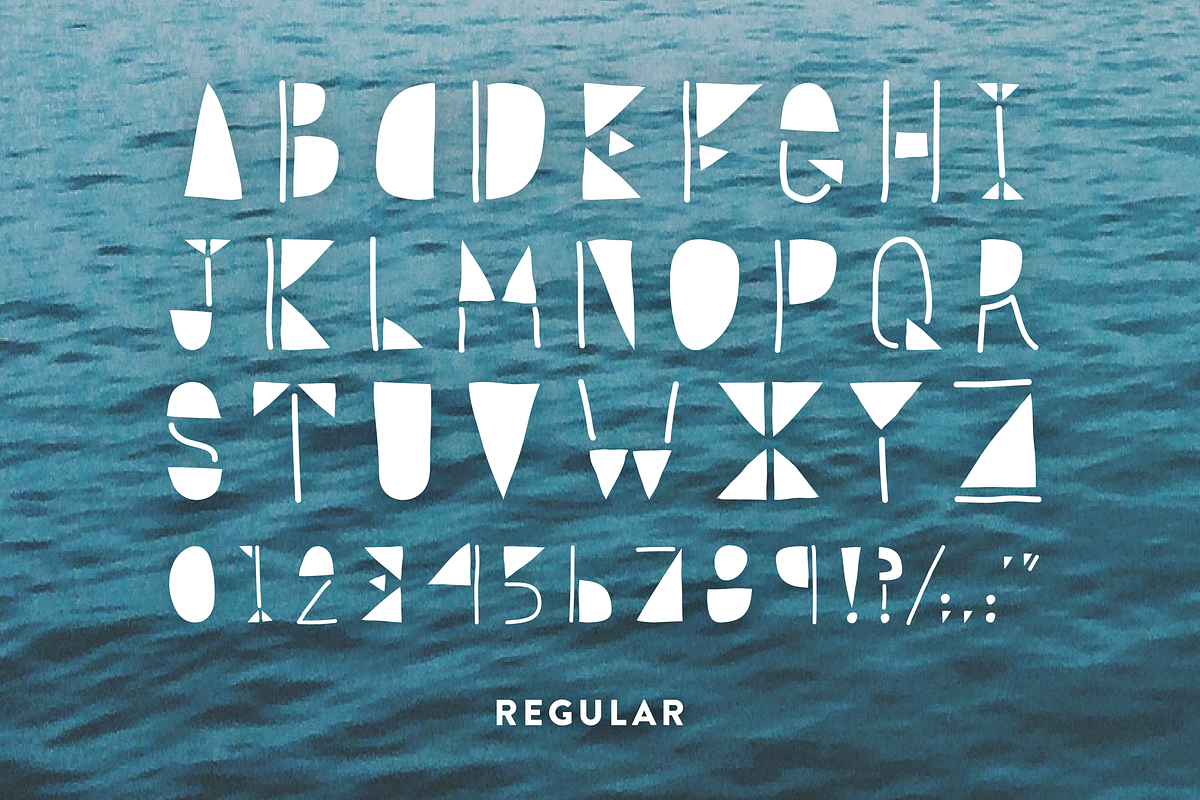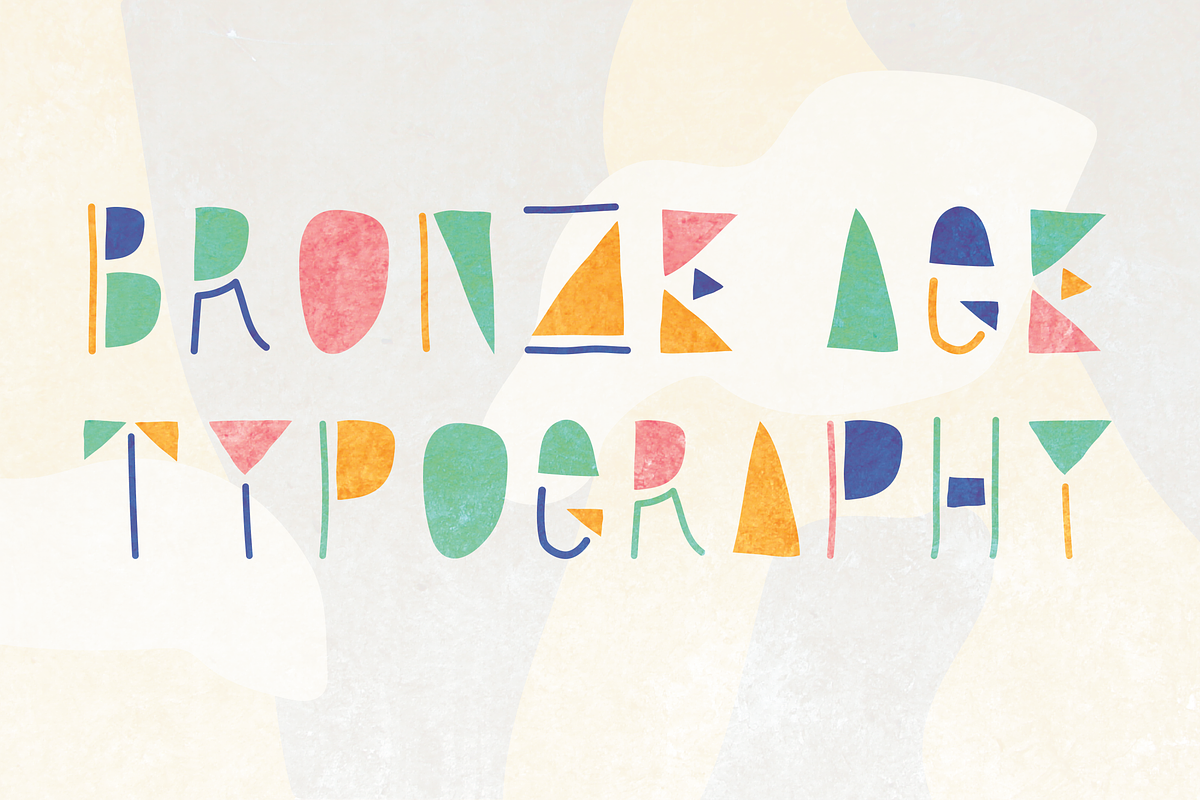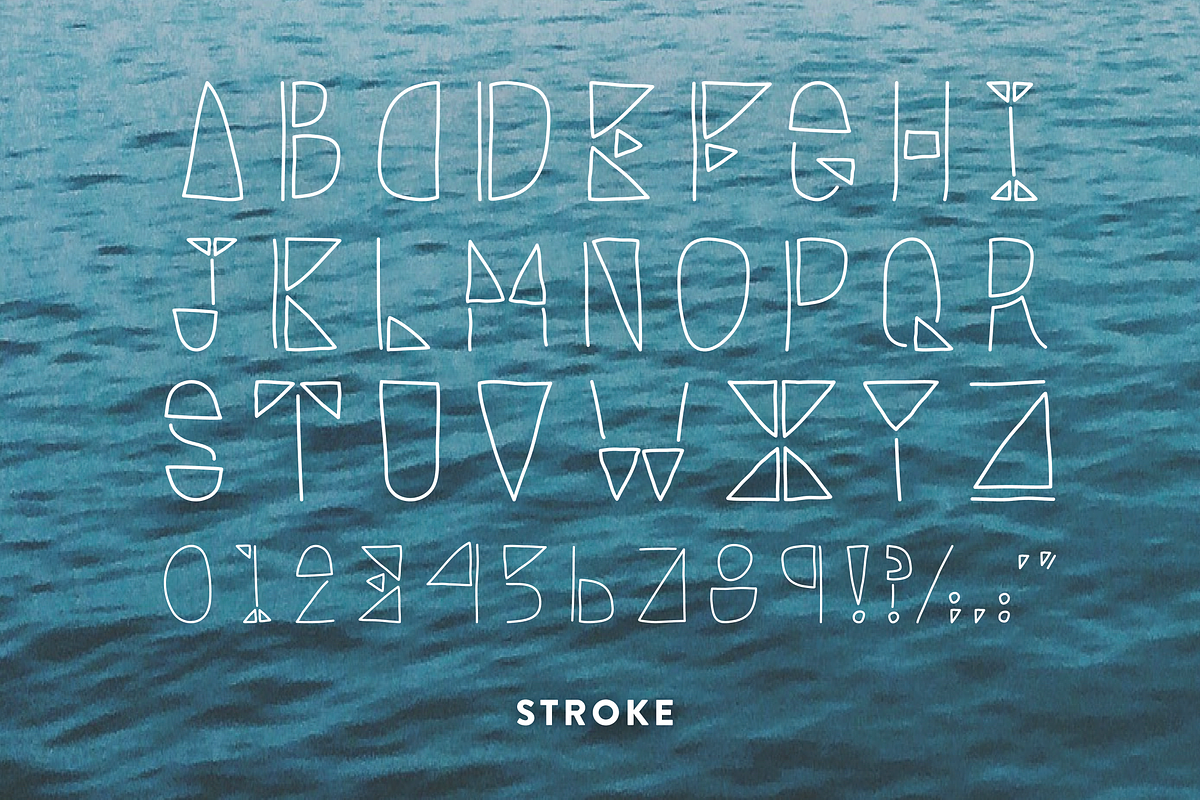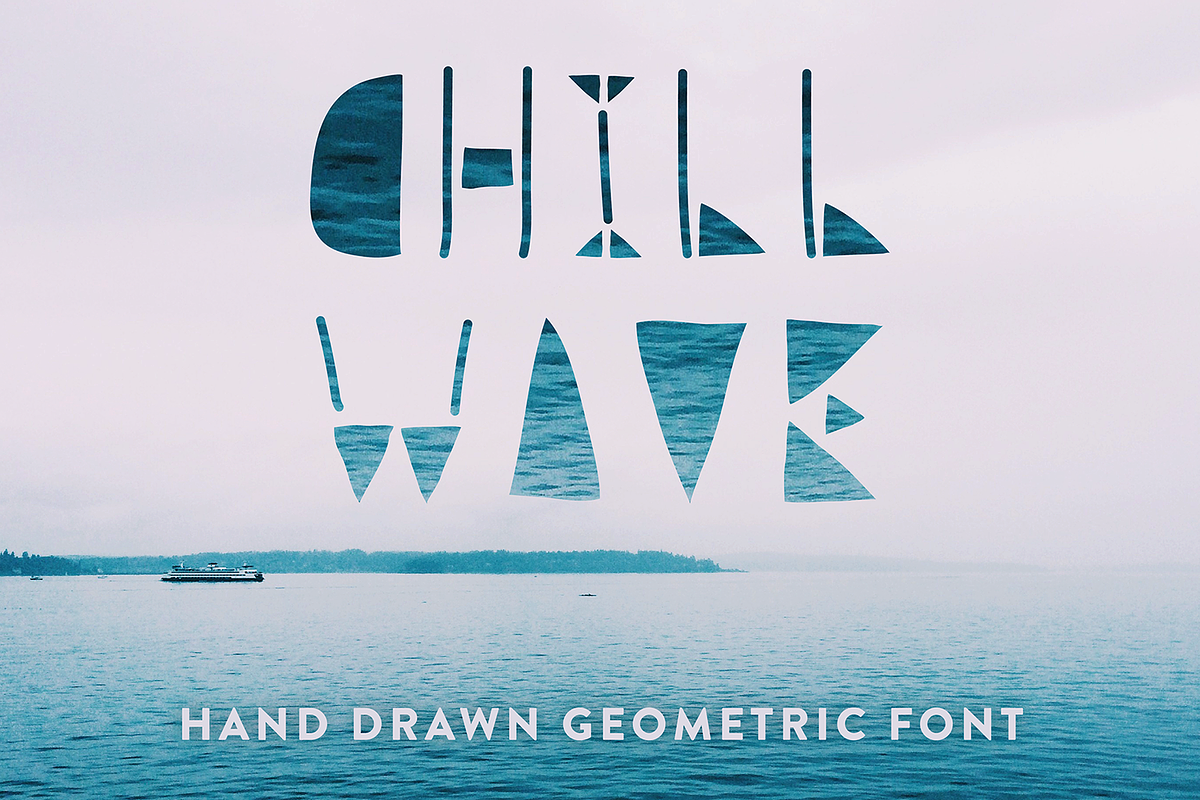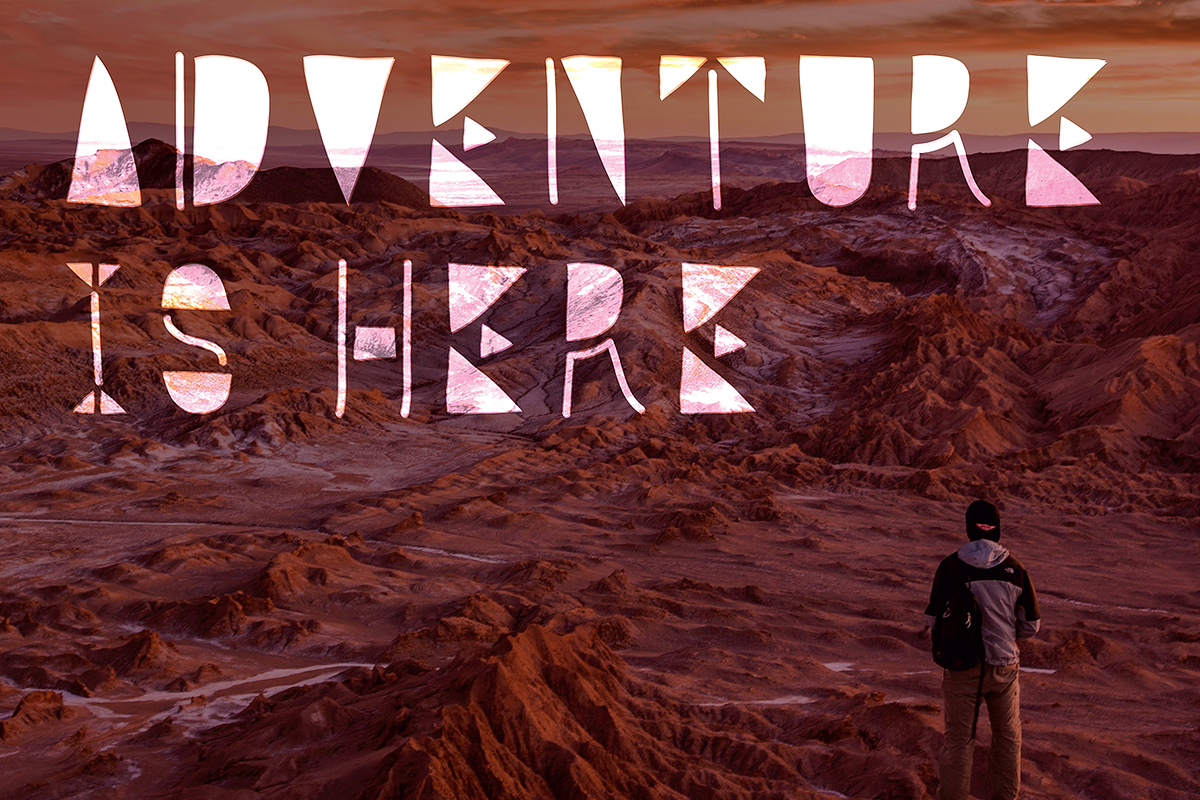
Chill Wave - Geometric Font
~ ~ ~ CHILL OUT WITH CHILL WAVE ~ ~ ~
I present to you my next hand drawn geometric font. Inspired by relaxing waves, the rippled and smooth-edged letters create a chilled-out geometric vibe.